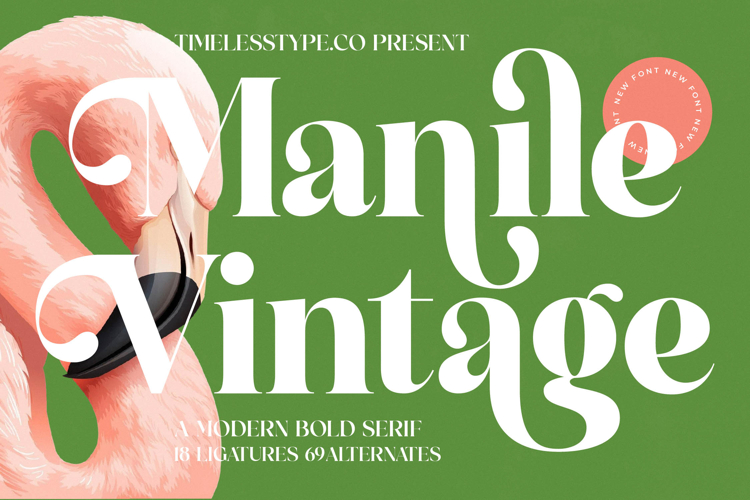
Manile Vintage - Modern Bold Serif
Unleash a new era of typographic elegance with Font Manile Vintage - Modern Bold Serif Serif Display, a masterpiece that seamlessly blends classic allure with contemporary boldness. This display serif font offers an instantly impactful presence, crafted for designers seeking to convey both luxury and approachability. Its distinctive character shapes and sophisticated aesthetic ensure your message commands attention and leaves a lasting impression.
Experience the exquisite detailing of Font Manile Vintage - Modern Bold Serif Serif Display, featuring beautifully balanced high-contrast strokes and refined serifs that exude confidence. The inherent grace of its curves, combined with a robust structure, makes it exceptionally adaptable for various design needs. With a generous suite of ligatures and alternates, this font empowers you to create truly unique and customized typographic layouts that resonate with style and originality.
Elevate your projects to an elite level with Font Manile Vintage - Modern Bold Serif Serif Display, perfect for luxury branding, high-end editorial layouts, sophisticated packaging design, and striking headline design. With its extensive multilingual support, Font Manile Vintage - Modern Bold Serif Serif Display adapts seamlessly across global markets, making it incredibly versatile for international projects. It’s an ideal choice for fashion labels, premium product lines, and elegant event invitations, ensuring your message travels globally with grace.
Choose Font Manile Vintage - Modern Bold Serif Serif Display to imbue your designs with an air of timeless sophistication and modern flair. This font is more than just a typeface; it’s a strategic asset for achieving a memorable design identity that stands out in a competitive landscape. Invest in this exceptional font to ensure your brand communication consistently projects unparalleled elegance and profound impact.